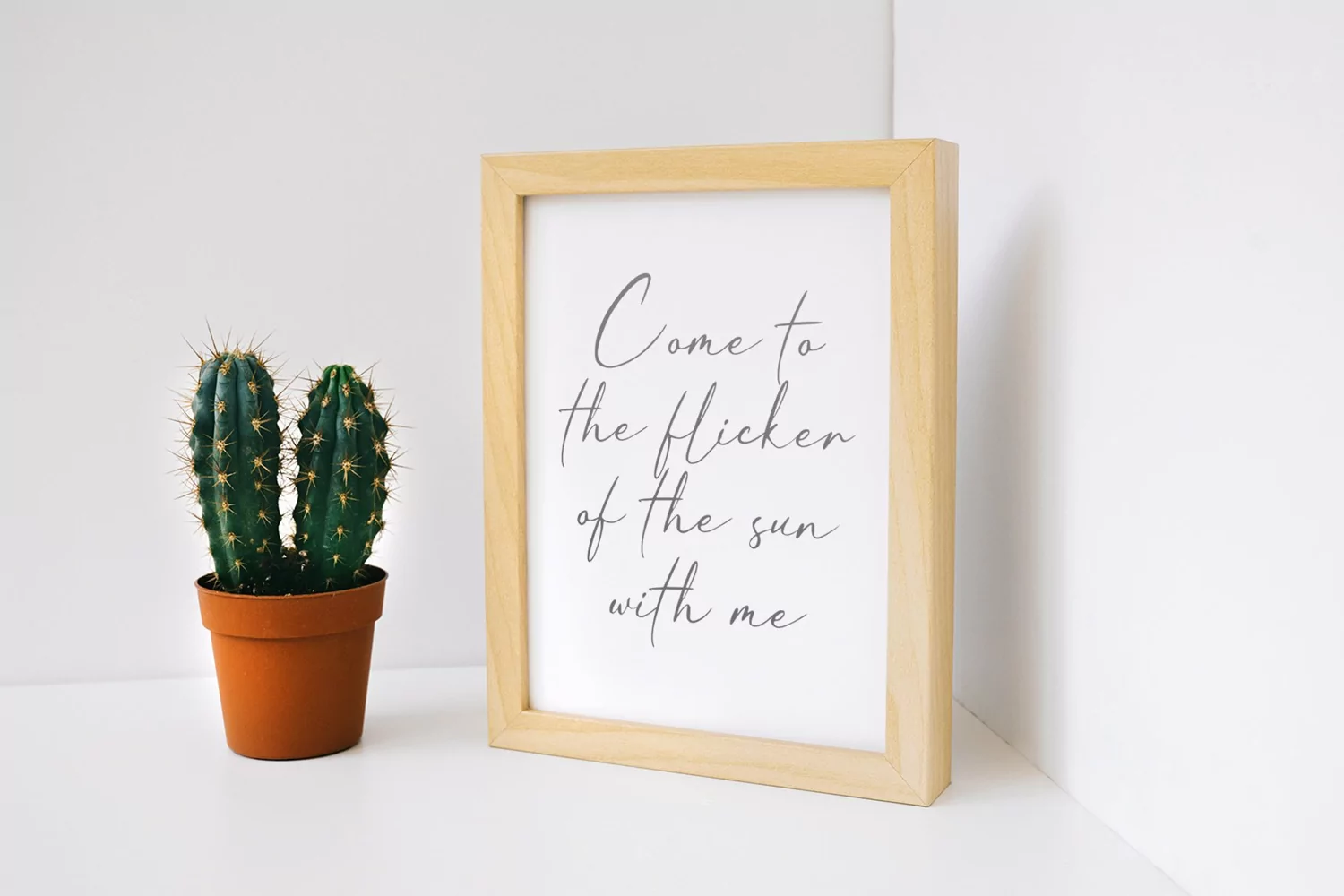
Stanley is a beautiful script typeface. Perfect for display, poster, quotes, film, craft needs, book cover, business card, packaging, merchandise, branding, logo, logotype, header, title, and many more.